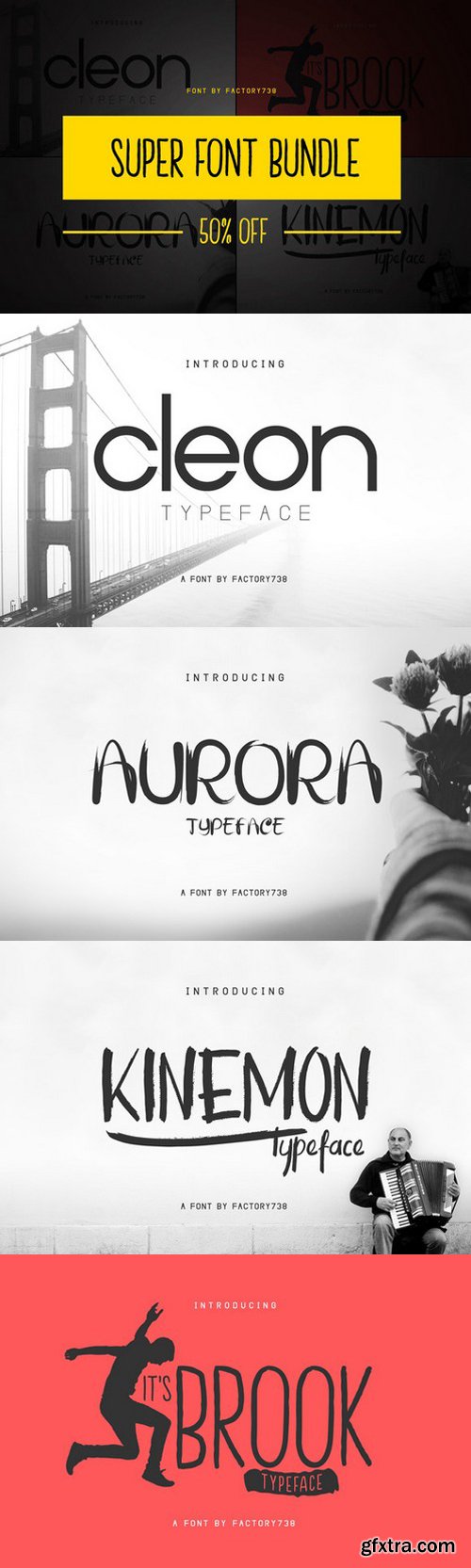
Introducing Super Font Bundle - contain 4 beautiful handcrafted fonts. So beautiful on invitation like greeting cards, branding materials, business cards, quotes, posters, and more!